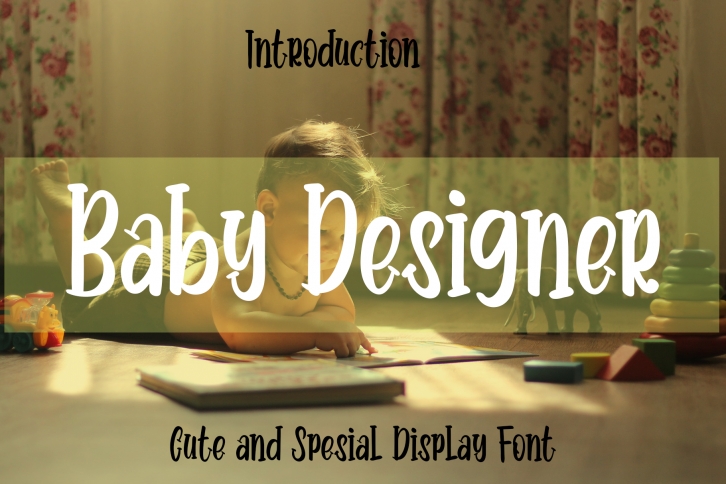
Baby Designer is a chic and casual handwritten font. Whatever the topic, this font will be a wonderful asset to your font library, as it has the potential to enhance any creation.